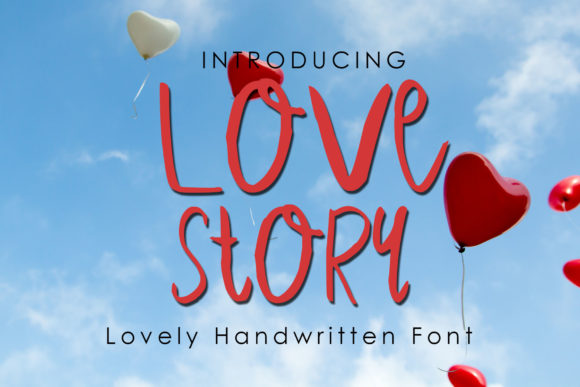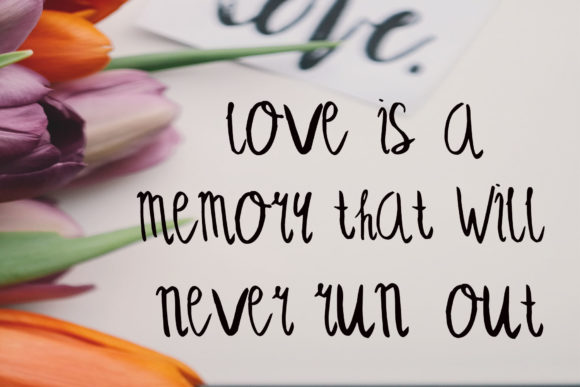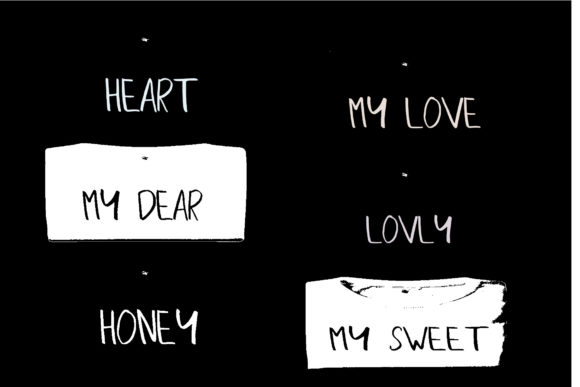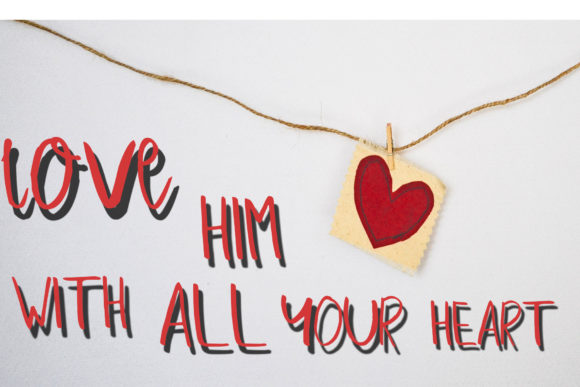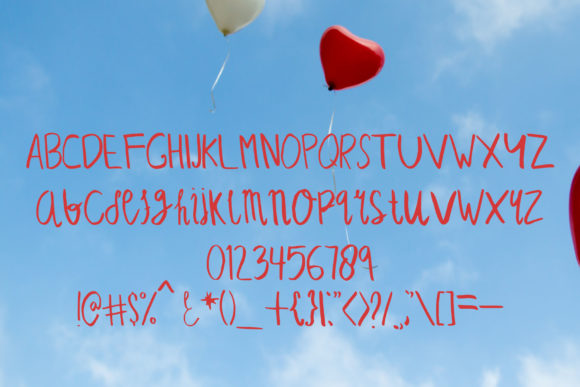
Love Story Font
About Love Story Font
Love Story is a friendly and casual script font with a friendly style. It will add a charming touch to any crafting project!